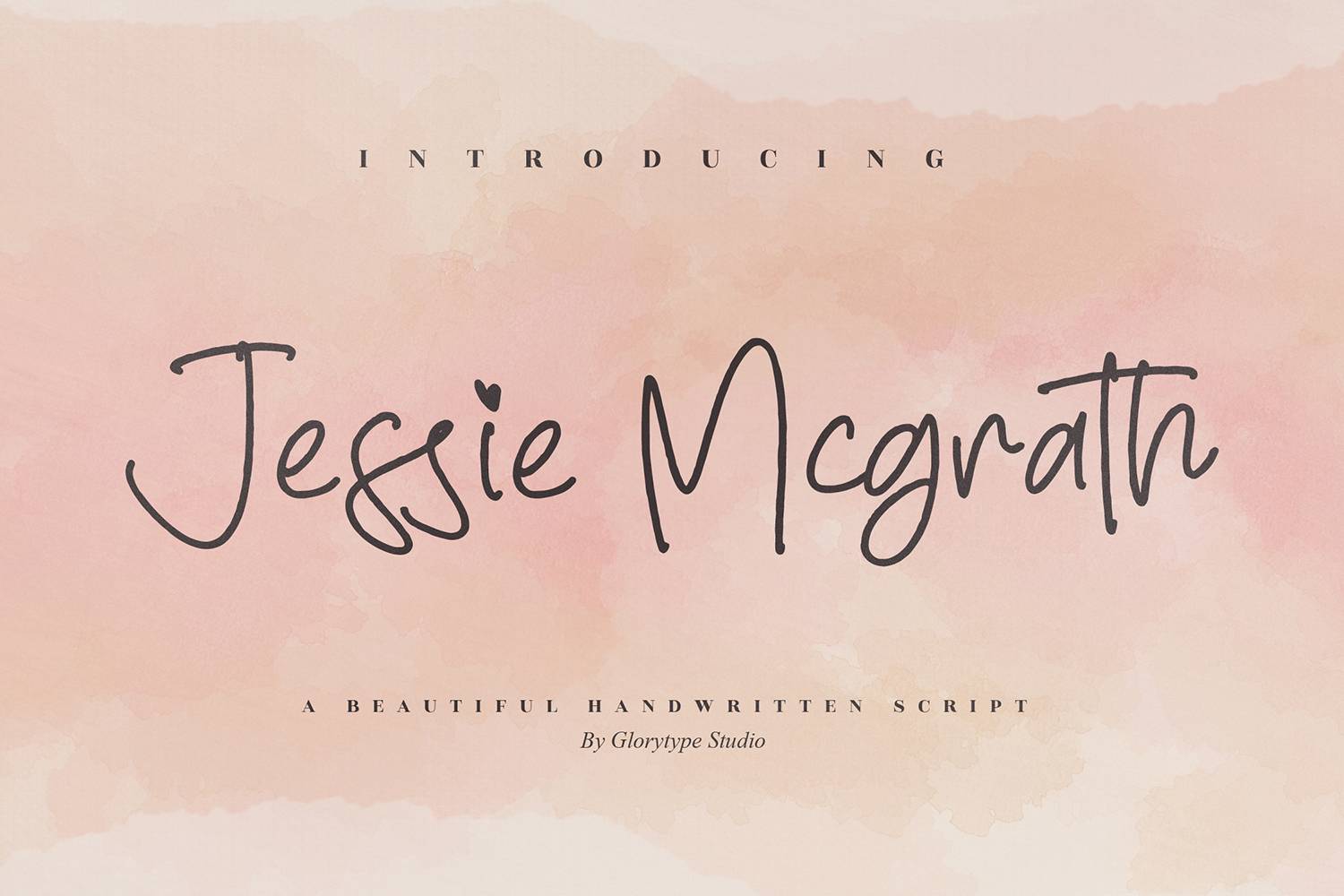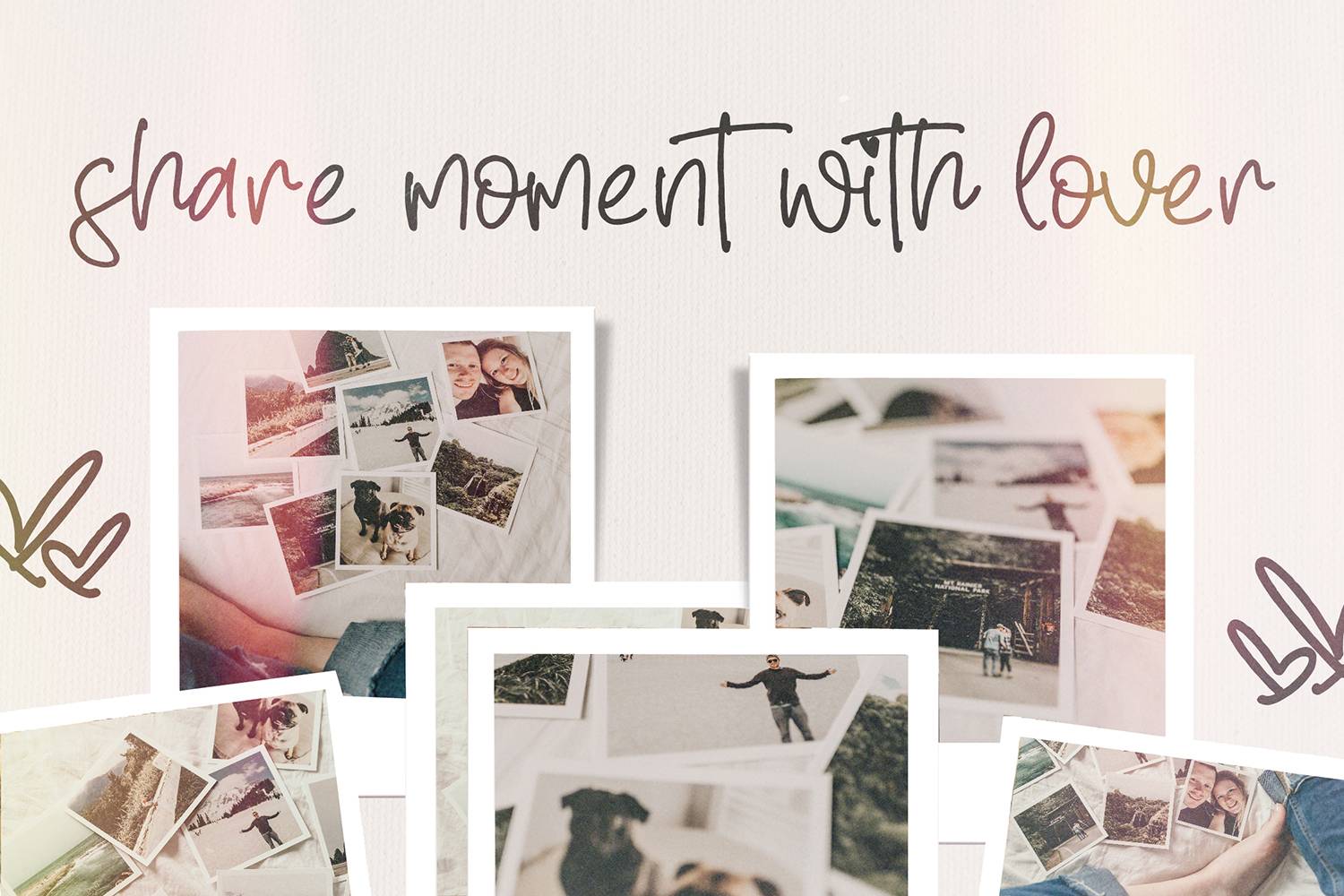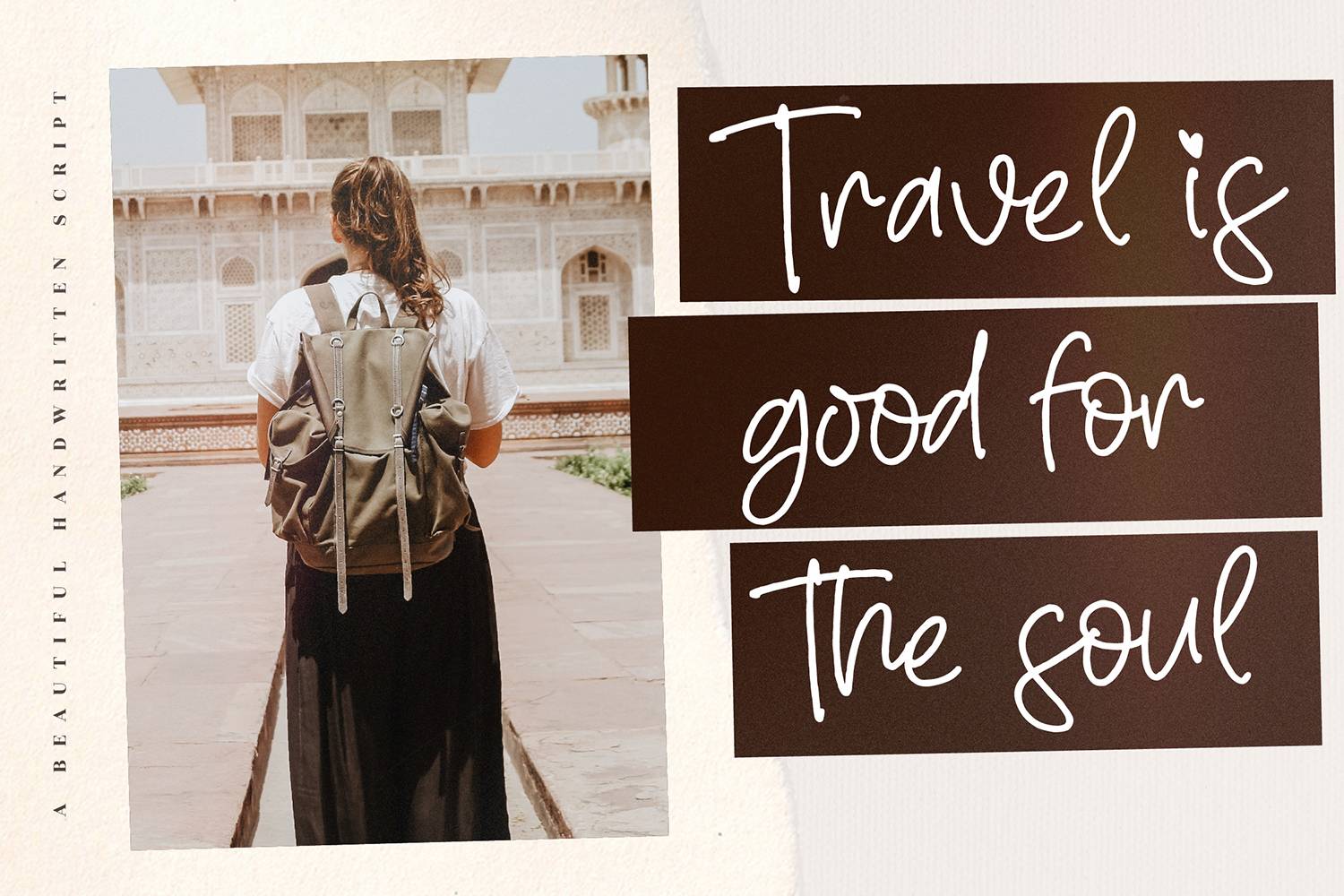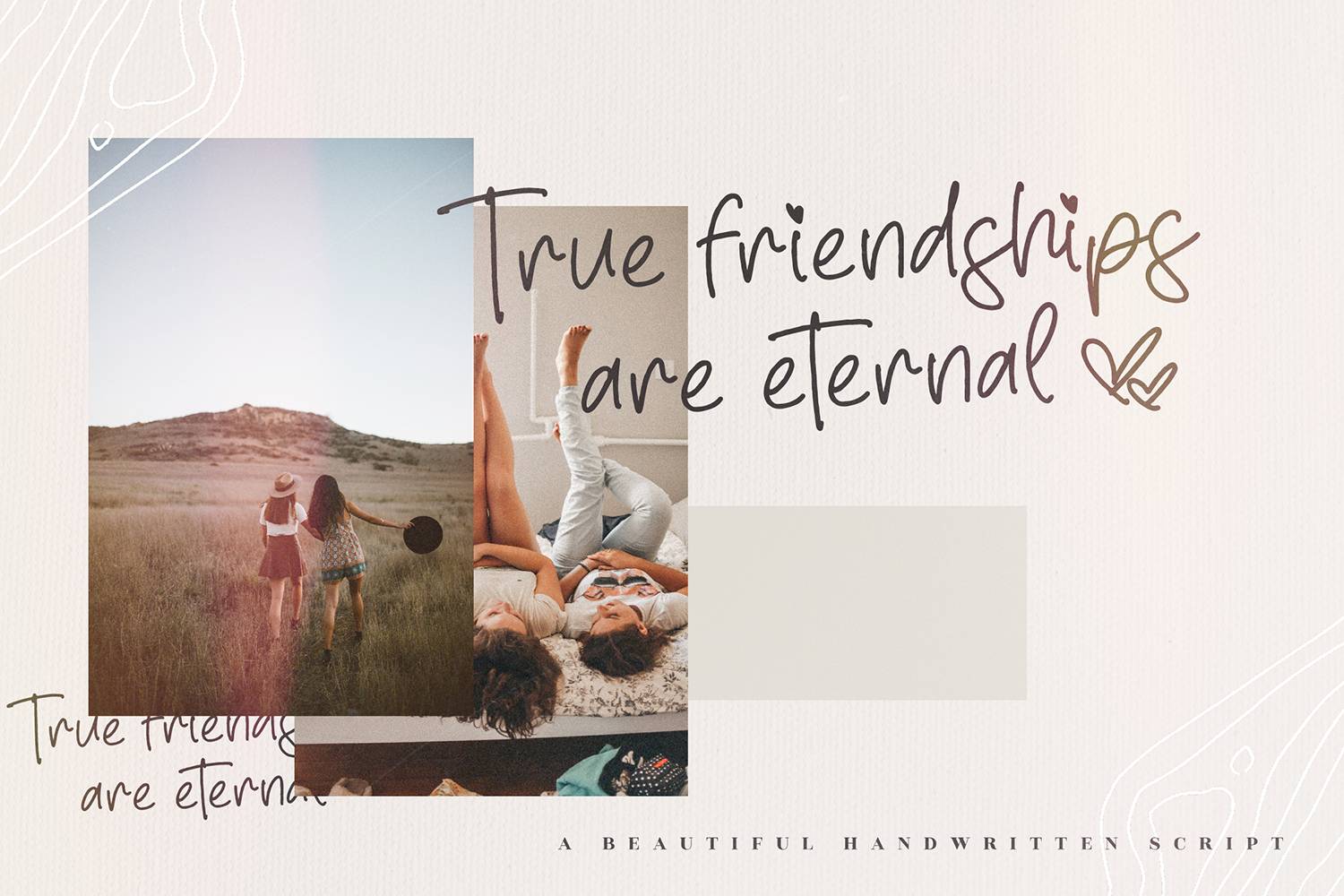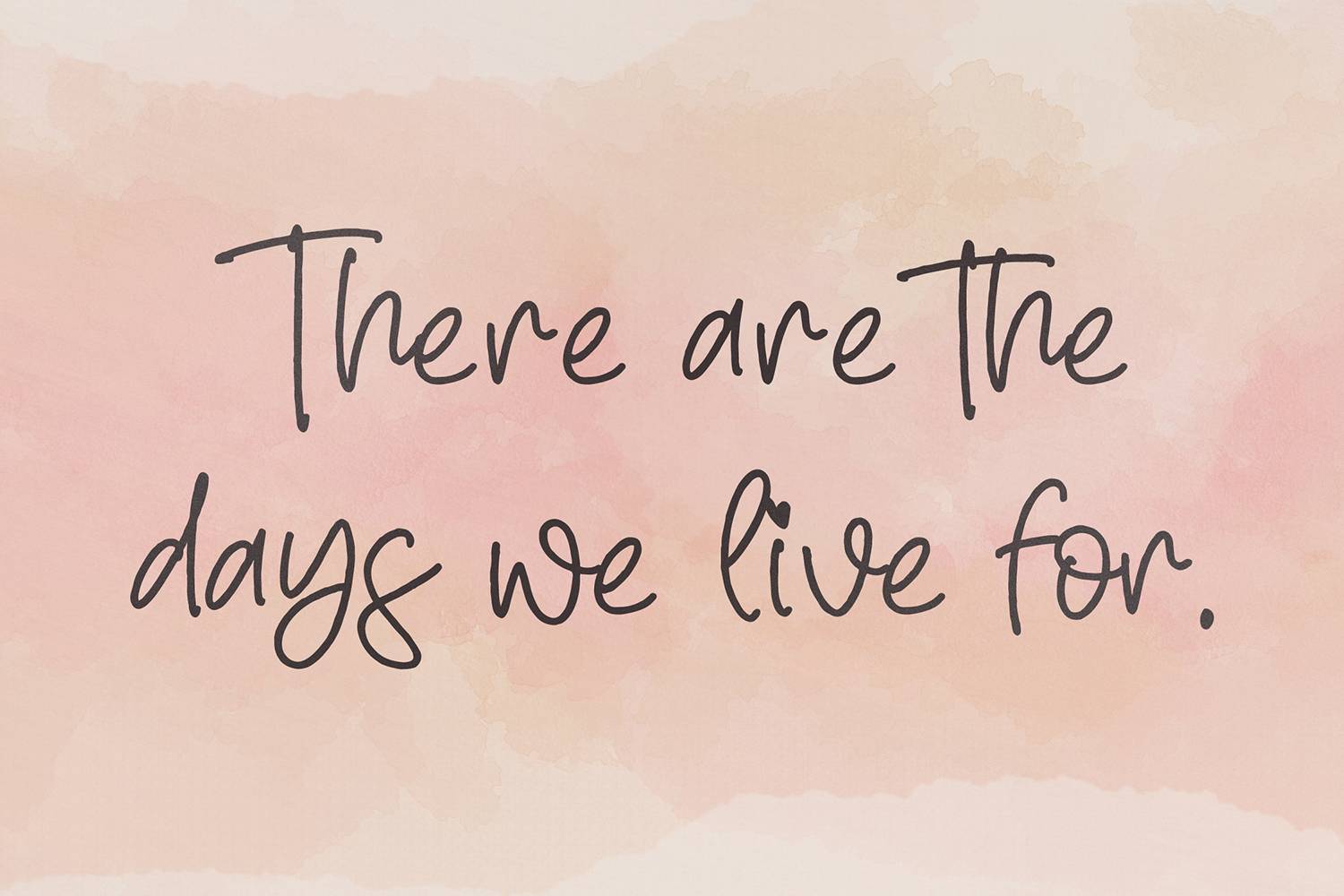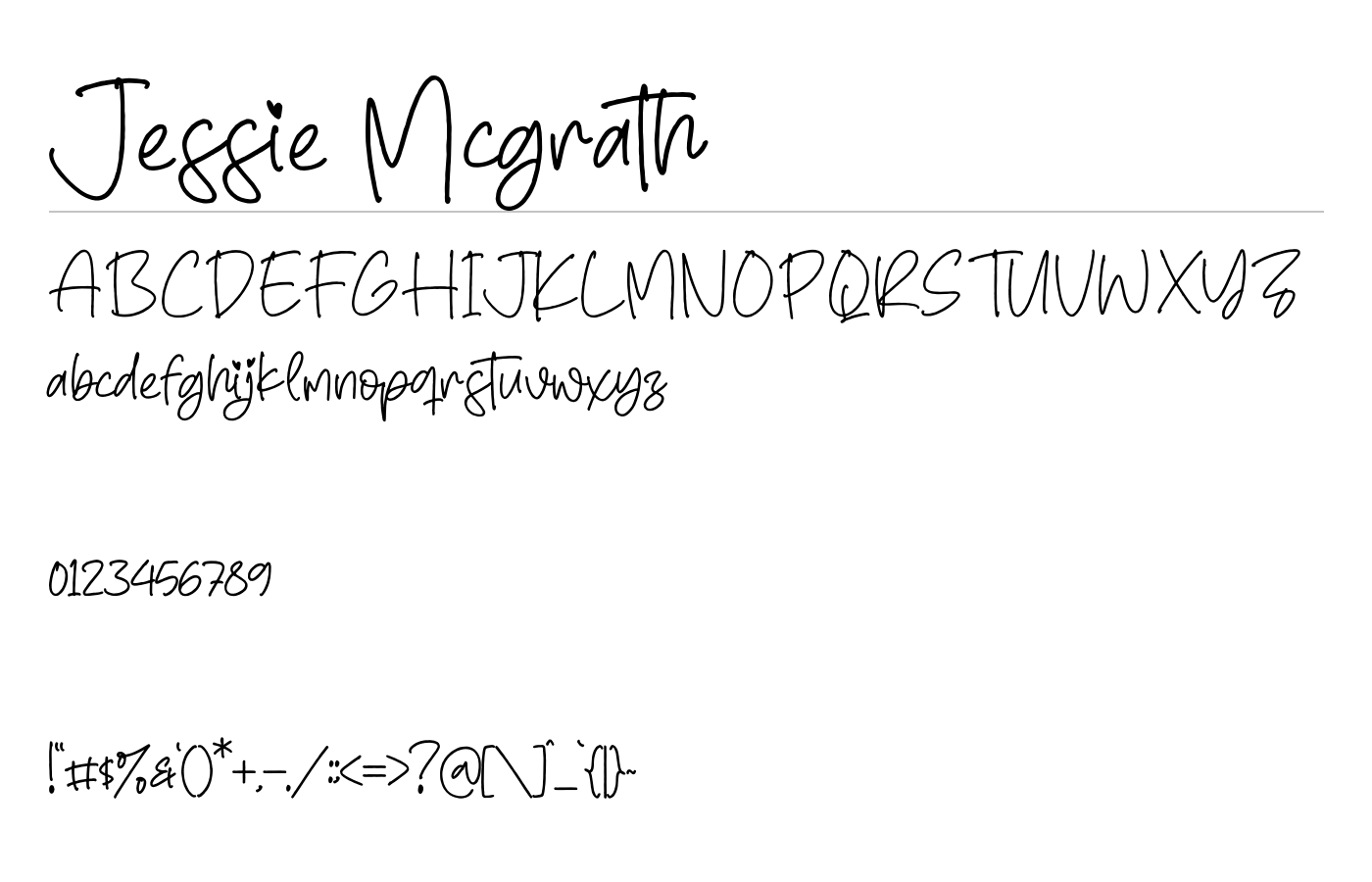
Jessie Mcgrath is a playful and casual handwritten script font with a light weight and narrow width, featuring tall, slightly irregular letterforms that give it a friendly and personal feel. Its loose, organic strokes with whimsical details like heart-shaped dots add charm and warmth, making it perfect for creative branding, informal invitations, and fun editorial projects needing a human touch. This font works best where a relaxed, approachable vibe is desired, lending personality without sacrificing readability.
Jessie Mcgrath Font
About Jessie Mcgrath Font